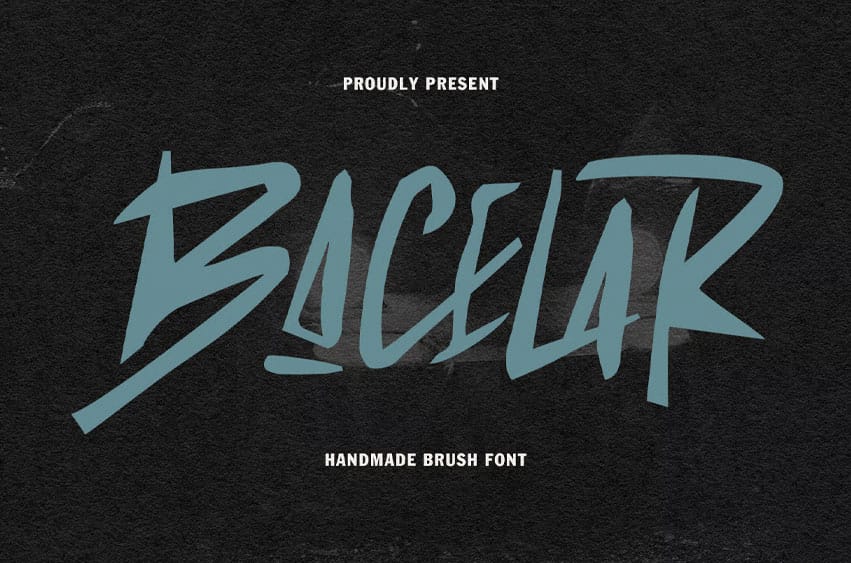
Bacelar Font is a unique handmade brush font that features playful characters, along with ligatures and alternates to enhance your creative projects. This font supports over 100 languages, making it versatile for various uses. It’s ideal for logo design, social media graphics, movie titles, book covers, short texts, and even longer letters.
Bacelar Font also works well as a secondary font when paired with sans serif or serif styles. Create stunning work with Bacelar Font!